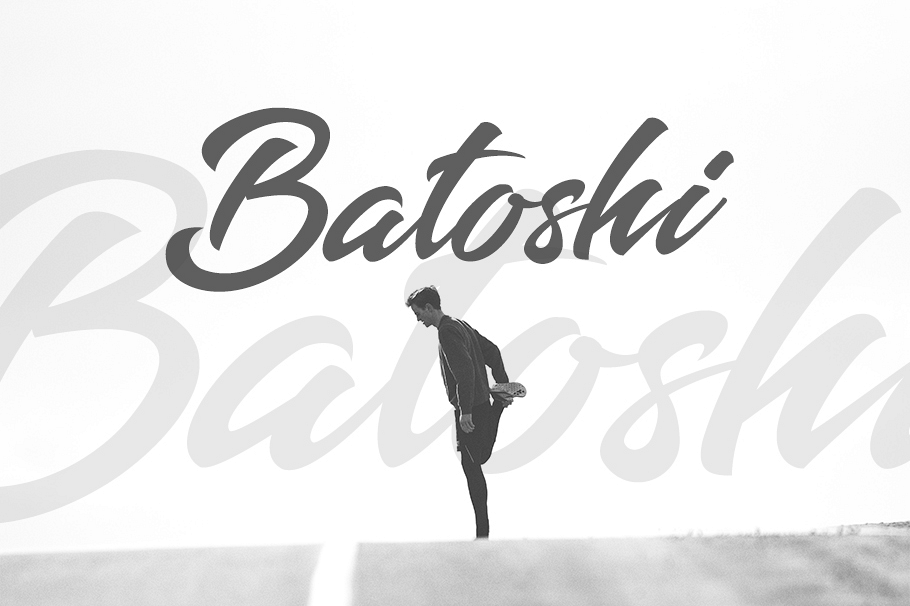
batoshi
Batoshi-Regular
Batoshi modern hand-lettered designs. It suitable for logo, branding, t-shirt, poster, packaging, book cover,menu and any brush lettering needs and more.